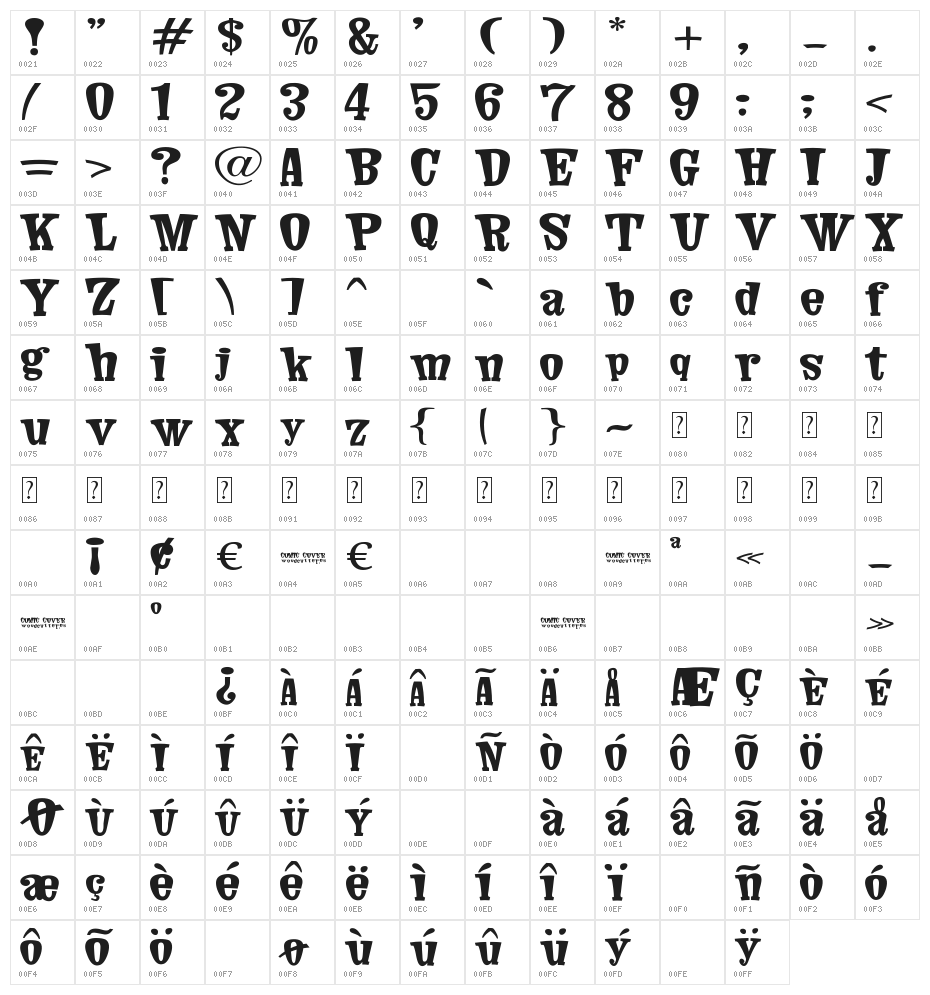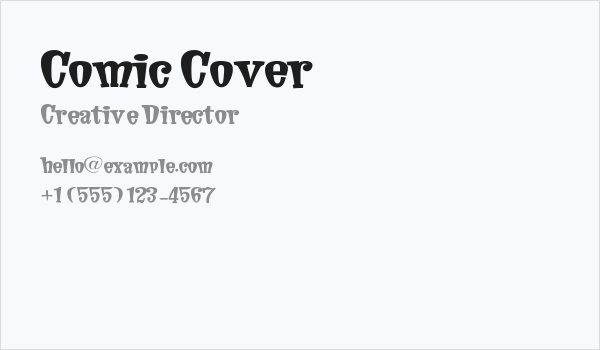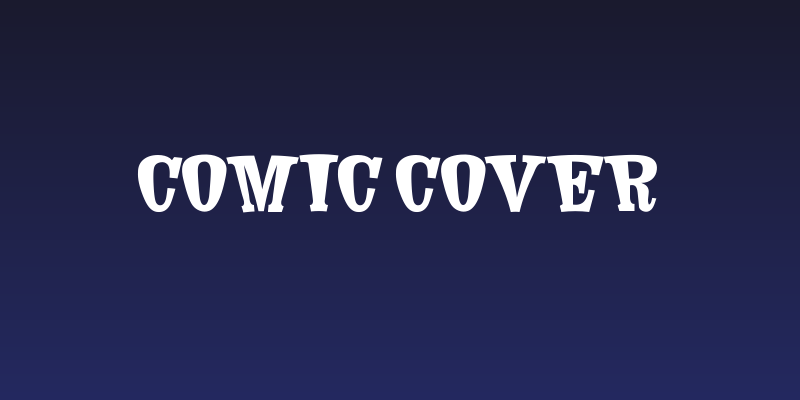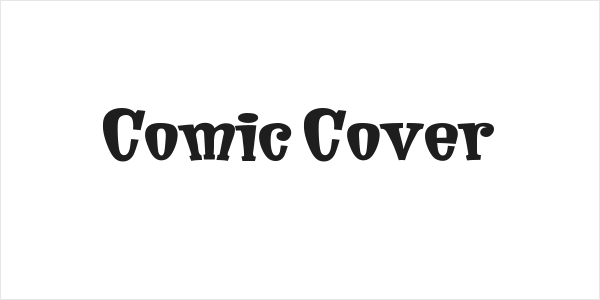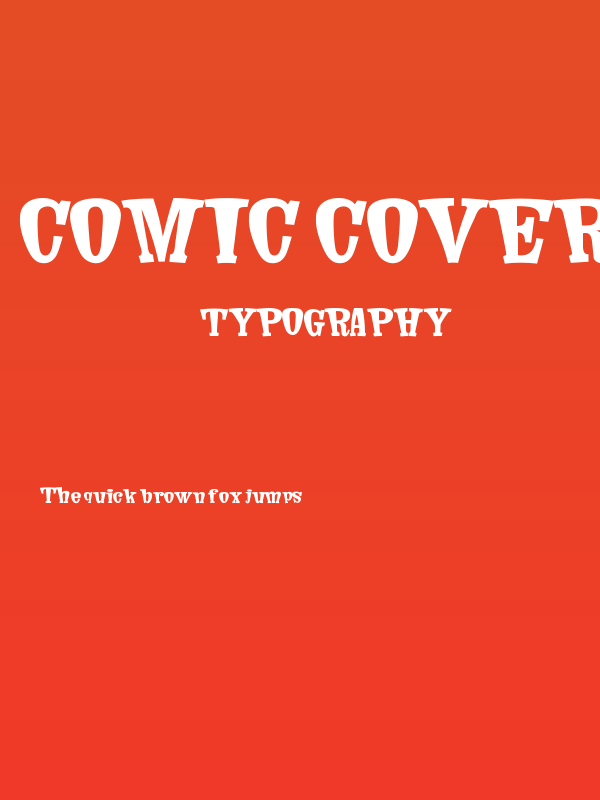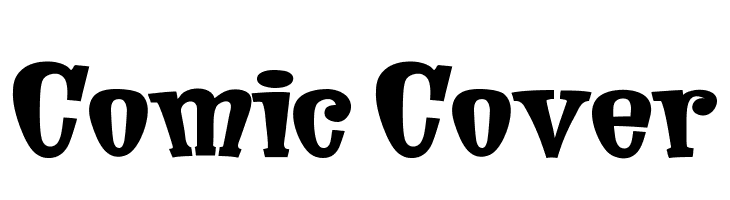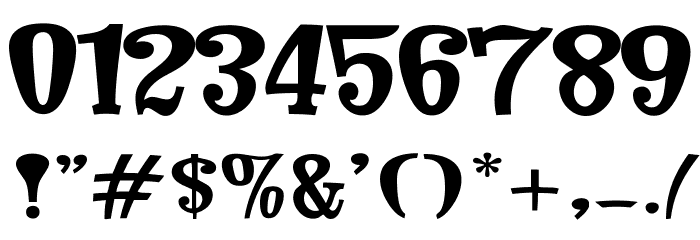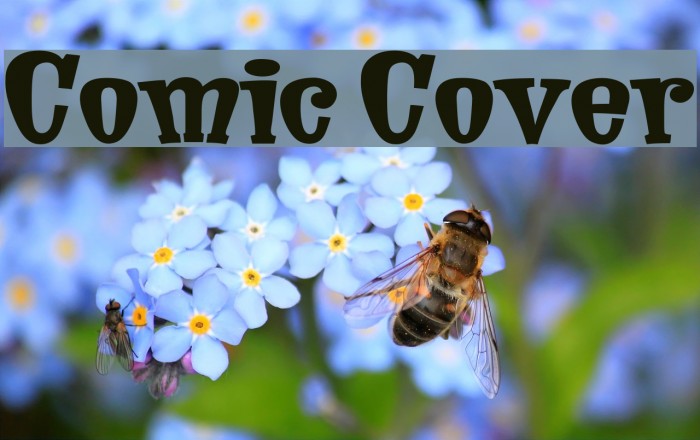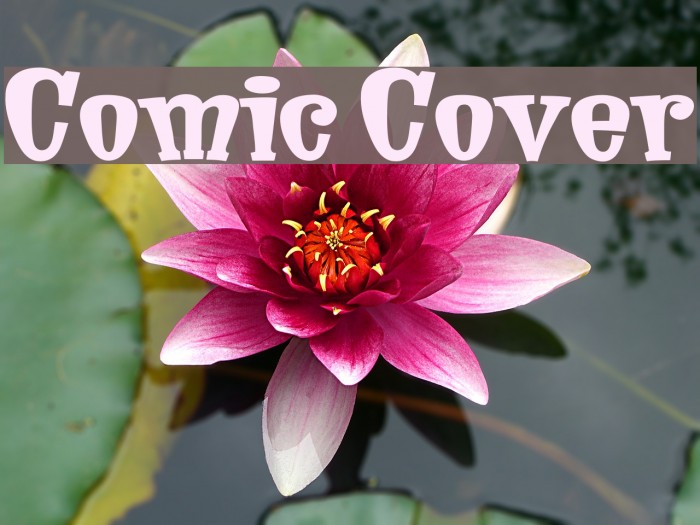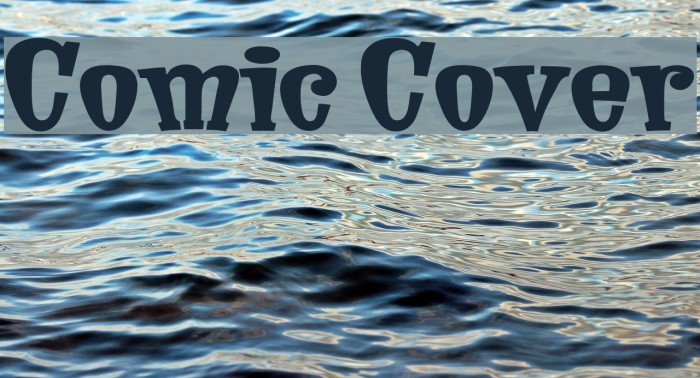
Comic Cover Font
Comic Cover Description
This font features a playful and bold style, characterized by its exaggerated serifs and whimsical curves. The letters have a slightly uneven baseline, adding to its casual and fun appearance. The uppercase and lowercase letters maintain a consistent style, with the uppercase being more pronounced. Numbers are equally bold and maintain the playful theme. Special characters are designed to match the overall aesthetic, making this font suitable for creative and informal applications.
| Proposed Projects | Ideal for comic book covers, children's books, playful posters, and creative branding. |